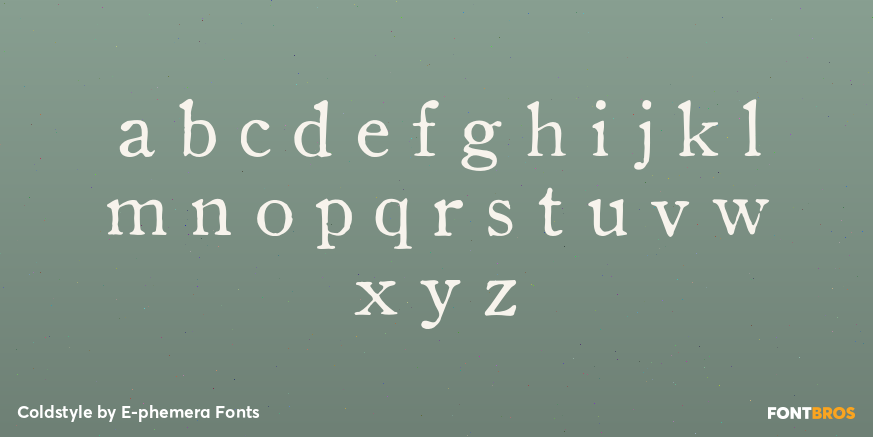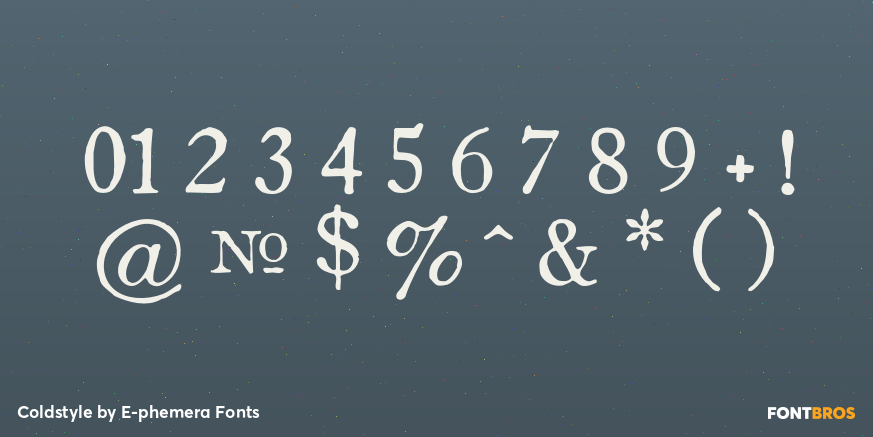
Coldstyle
Font Family by E-phemera Fonts
Coldstyle is inspired by Old Style 1 from the 1935 Linotype catalog.
It is a text font gently aged to capture the feel of old metal type, and includes ?fi? and ?fl? ligatures for old-fashioned typesetting. The Small Caps weight has standard fractions in place of numerals.
This font was used in the opening titles and closing credits of the Miramax film Cold Mountain.